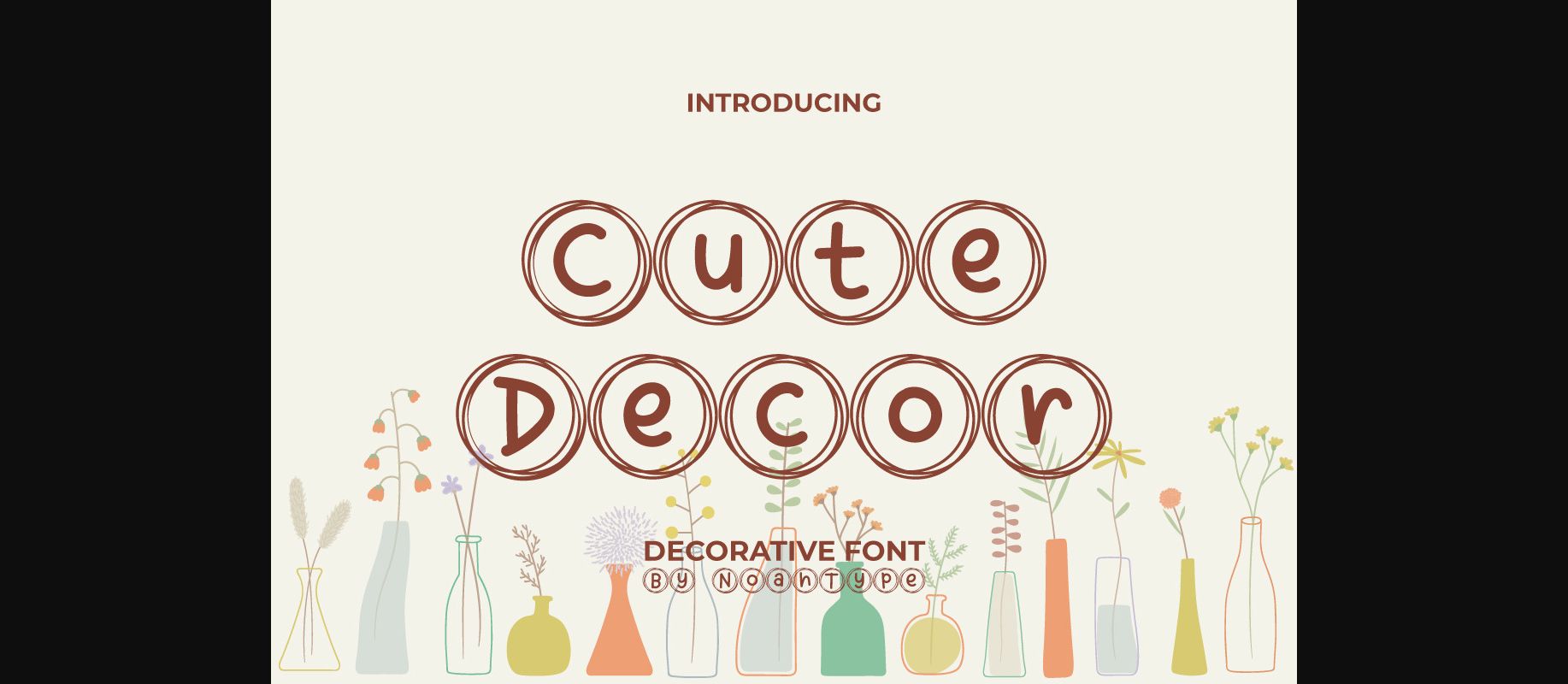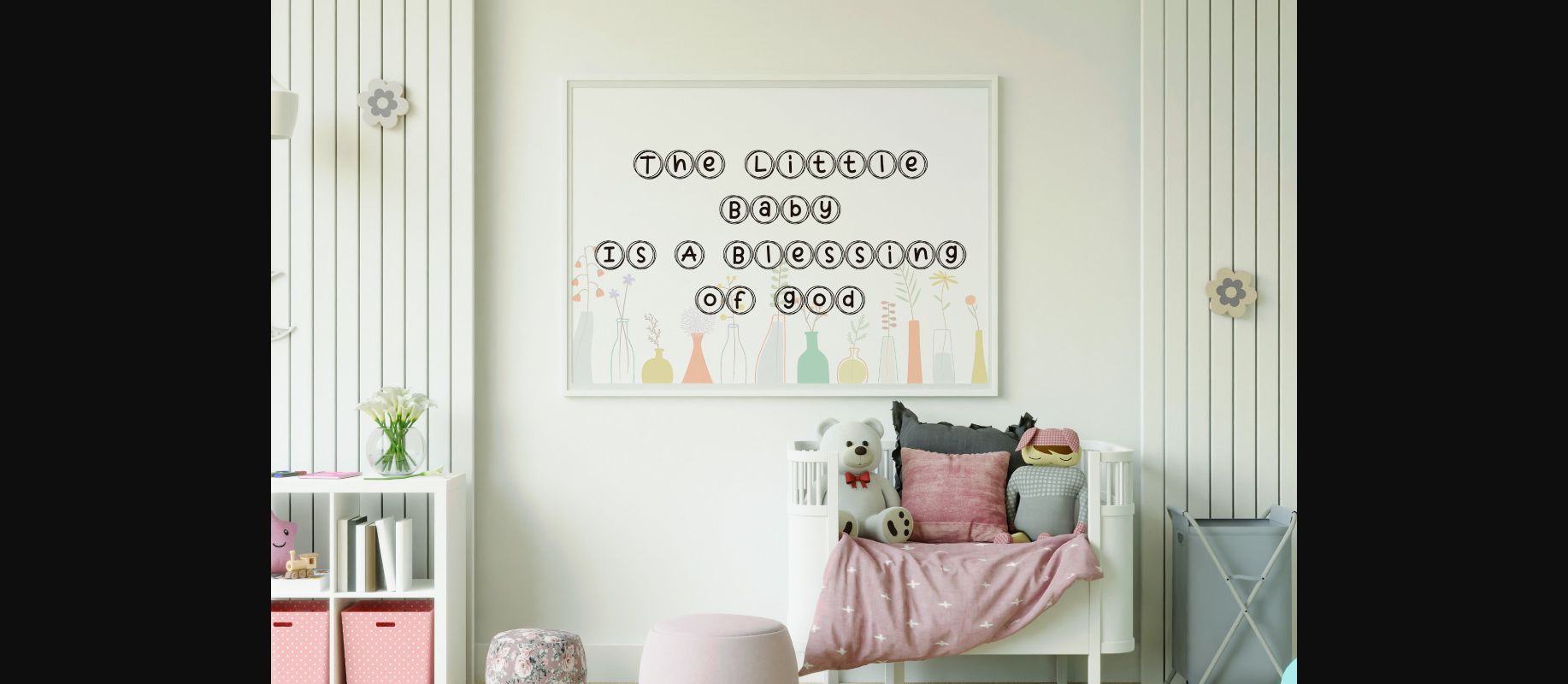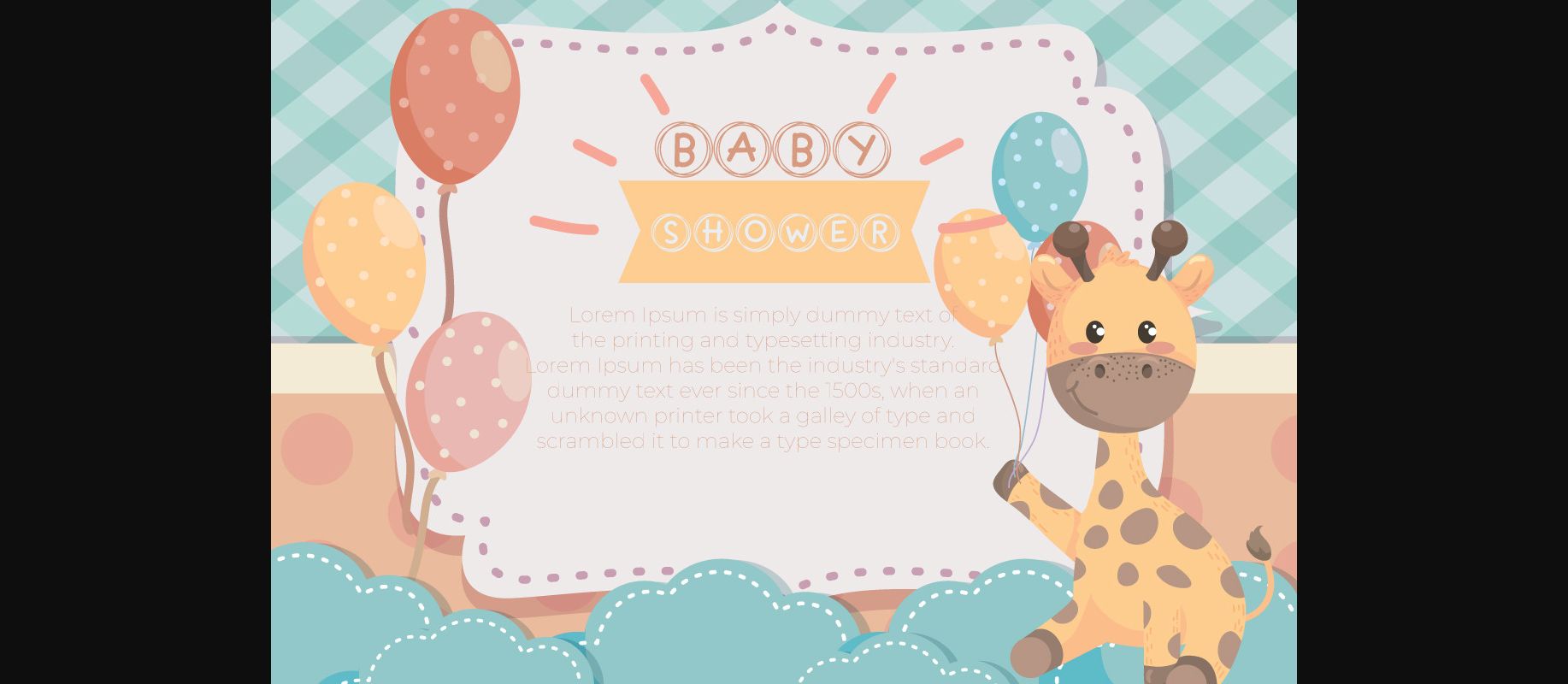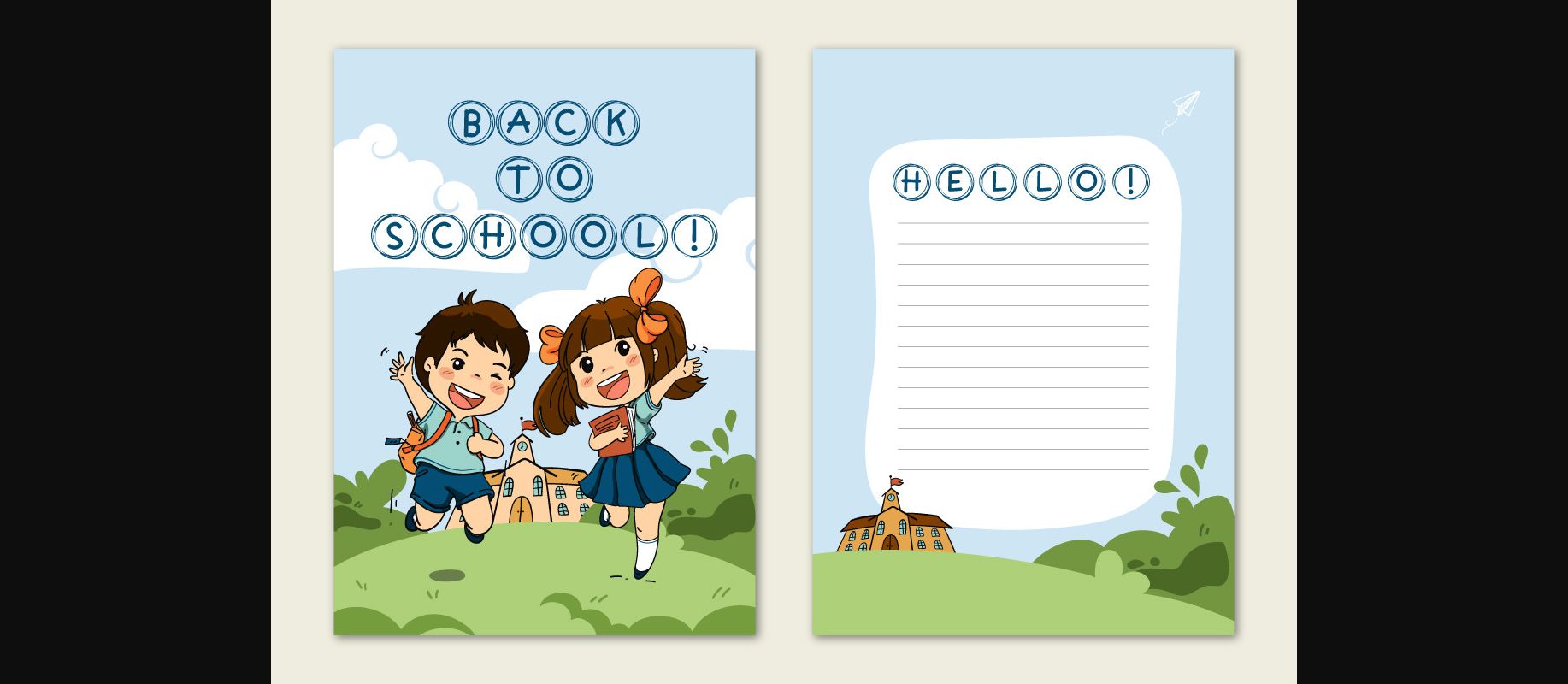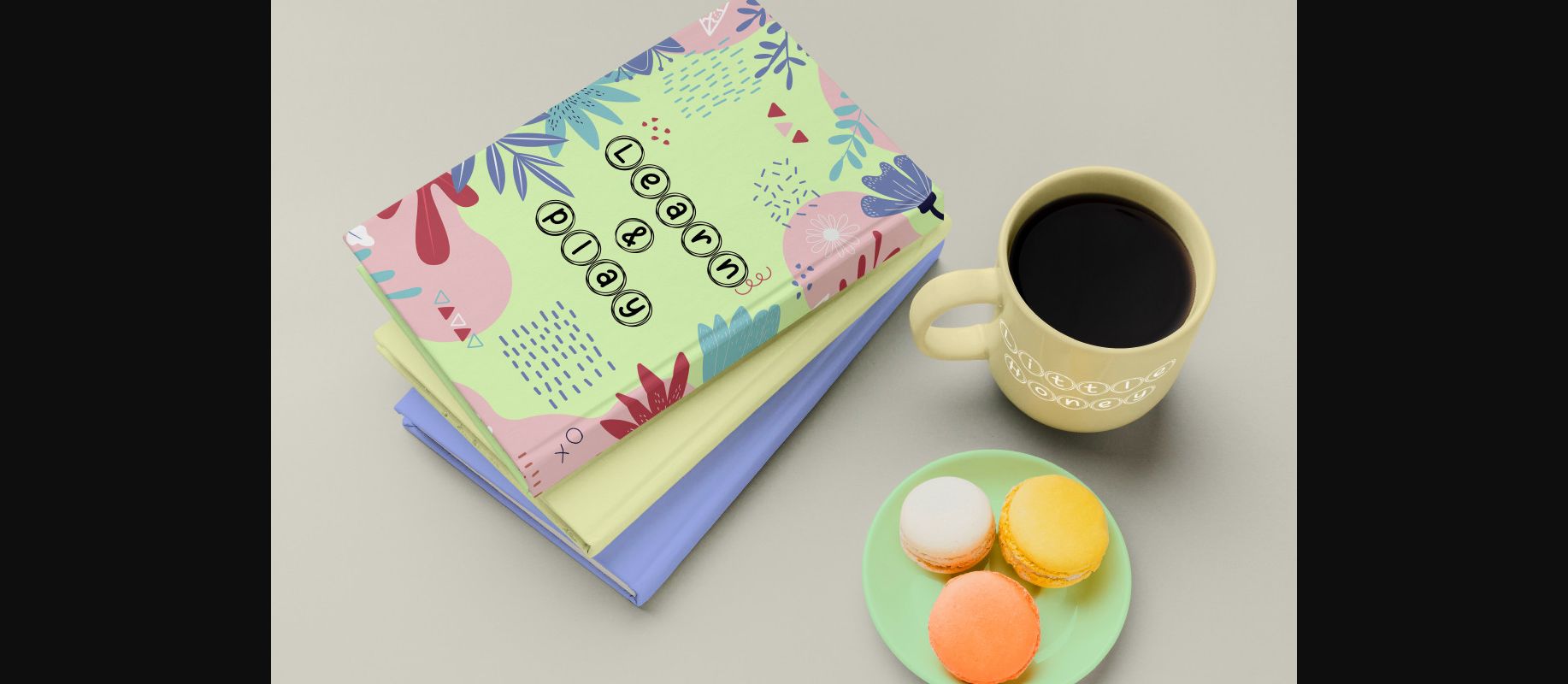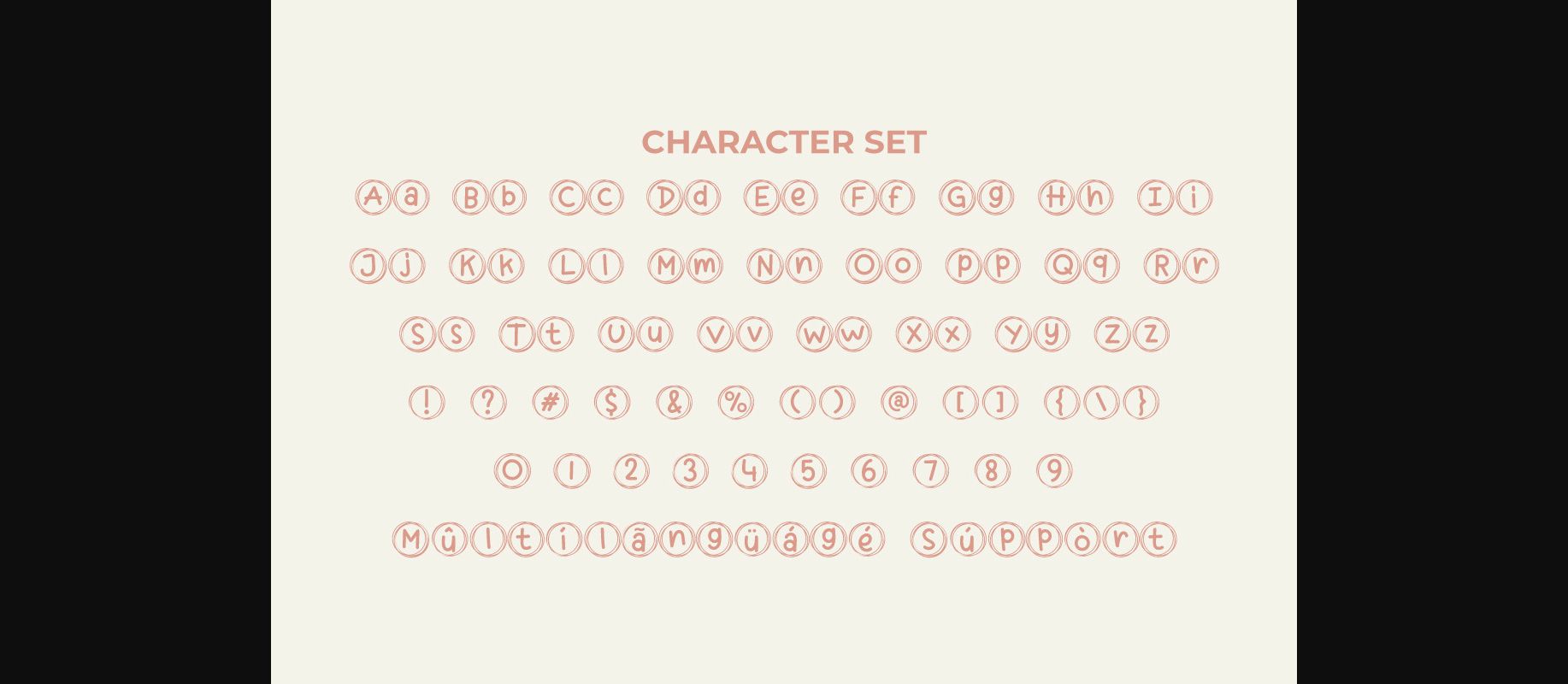
About Cute Decor Font
Cute Decor is a cool and adaptable decorative font. It works for businesses or companies such as, fashion, games, kids, school, writers and more.